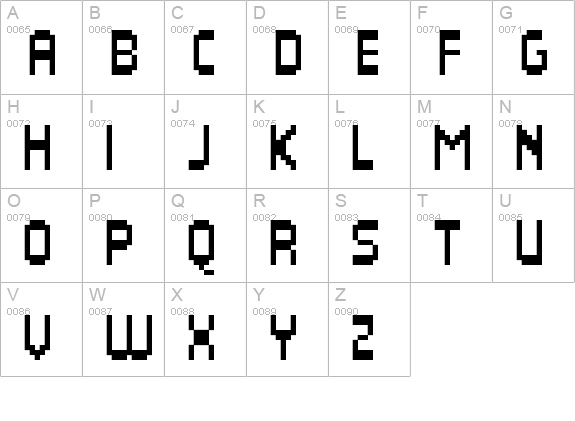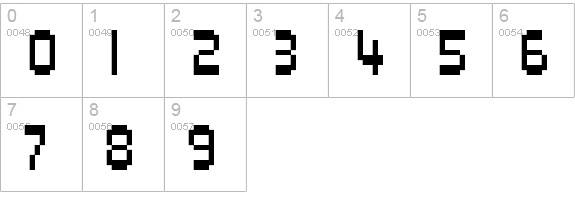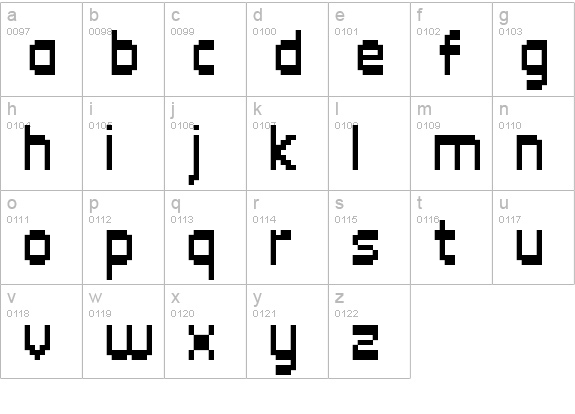
FFF Direct Font Details
FFF Direct font is a modern and stylish typeface that is perfect for various design projects. With its sleek lines and contemporary feel, this font exudes professionalism and sophistication. The clean and clear letterforms make it easily readable, making it suitable for both print and digital applications. What makes FFF Direct font even more appealing is that it is available for free download at FontsMarket.com. This means you can effortlessly access this high-quality font without any cost, making it a valuable addition to your font library. Whether you are designing a website, creating a logo, or working on a branding project, FFF Direct font is sure to elevate your designs with its sleek and polished appearance. Download this font today and enhance your creative projects with ease!